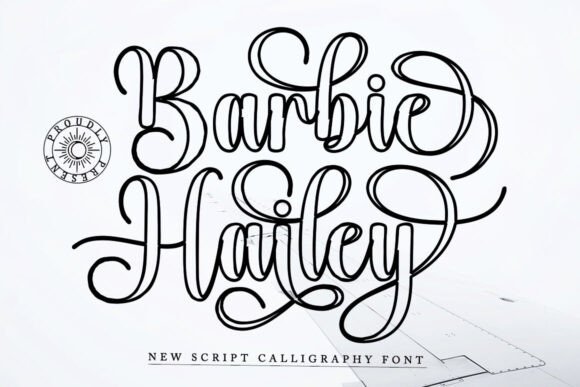
Introducing Barbie Hailey Outline Font: The Perfect Choice for Stunning Designs
In the world of typography, fonts play a crucial role in making or breaking a design. A well-chosen font can elevate your brand’s visual identity, making it more recognizable and memorable. If you’re on the hunt for a font that exudes elegance, sophistication, and a touch of playfulness, look no further than the Barbie Hailey Outline Font. This lovely and timeless handwritten font is the perfect choice for creating eye-catching logos, branding, and quotes that will leave a lasting impression.
What Makes Barbie Hailey Outline Font So Special?
Barbie Hailey Outline Font boasts a unique and beautiful touch that sets it apart from other fonts. Every letter is carefully crafted to add a personal touch to your designs, making them come alive. The font’s outline style gives it a distinctive look that’s both modern and classic, allowing it to seamlessly blend with various design aesthetics.
- Unique and Beautiful Touch: Each letter in the Barbie Hailey Outline Font has a distinct character that adds a personal touch to your designs.
- Timeless and Elegant: The font’s classic look ensures it remains relevant and stylish, even as design trends evolve.
- Versatile: From logos and branding to quotes and social media graphics, Barbie Hailey Outline Font adapts to various design needs.
Endless Design Possibilities with Barbie Hailey Outline Font
The versatility of Barbie Hailey Outline Font makes it an excellent choice for a wide range of design projects. Here are some ideas to get you started:
- Logo Design: Create a memorable brand logo that stands out with the font’s elegant and unique style.
- Branding: Use Barbie Hailey Outline Font consistently across your brand materials to establish a strong visual identity.
- Quotes and Posters: Add a touch of sophistication to your inspirational quotes and posters with this beautiful font.
- Social Media Graphics: Elevate your social media presence with eye-catching graphics that showcase your brand’s personality.
- Wedding and Event Stationery: Add a romantic and whimsical touch to your wedding or event stationery with this lovely font.
Tips for Getting the Most Out of Barbie Hailey Outline Font
To maximize the impact of Barbie Hailey Outline Font, consider the following tips:
- Pair with Complementary Fonts: Combine Barbie Hailey Outline Font with simpler fonts to create visual interest and hierarchy in your designs.
- Experiment with Colors: Don’t be afraid to try different color palettes to find the perfect match for your brand and design.
- Adjust Font Sizes: Play with font sizes to create emphasis and add depth to your designs.
- Use it Consistently: Consistency is key to establishing a strong brand identity, so use Barbie Hailey Outline Font across all your design materials.
Why Choose Barbie Hailey Outline Font?
In a sea of fonts, Barbie Hailey Outline Font stands out for several reasons:
- Unique Style: The font’s outline style and handwritten touch make it a one-of-a-kind choice for designers.
- Elegance and Sophistication: Barbie Hailey Outline Font exudes elegance and sophistication, making it perfect for high-end brands and designs.
- Easy to Read: Despite its unique style, the font remains highly legible, ensuring your message is communicated effectively.
In conclusion, Barbie Hailey Outline Font is a versatile and beautiful font that can elevate your designs to new heights. Its unique and timeless style makes it an excellent choice for a wide range of design projects, from logos and branding to quotes and social media graphics. With its elegance, sophistication, and playfulness, this font is sure to leave a lasting impression on your audience. So why wait? Give Barbie Hailey Outline Font a try today and discover the difference it can make in your designs!